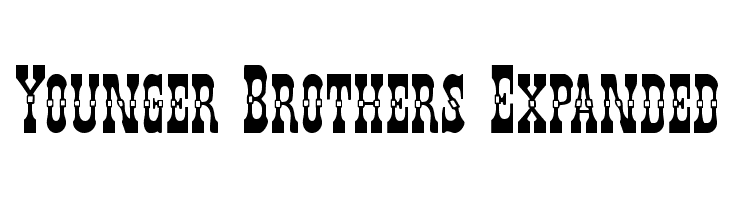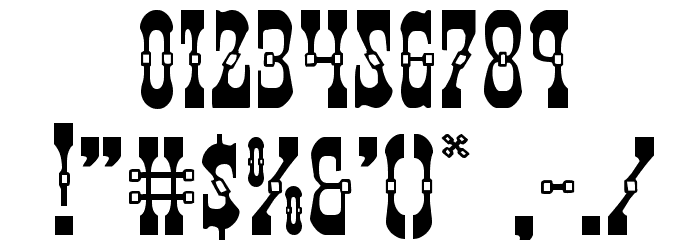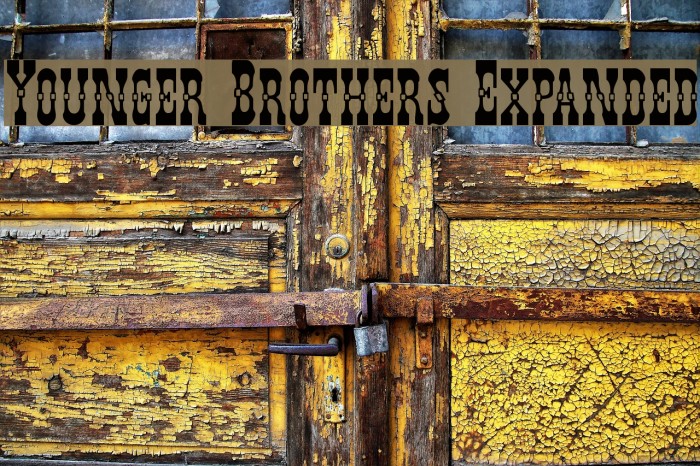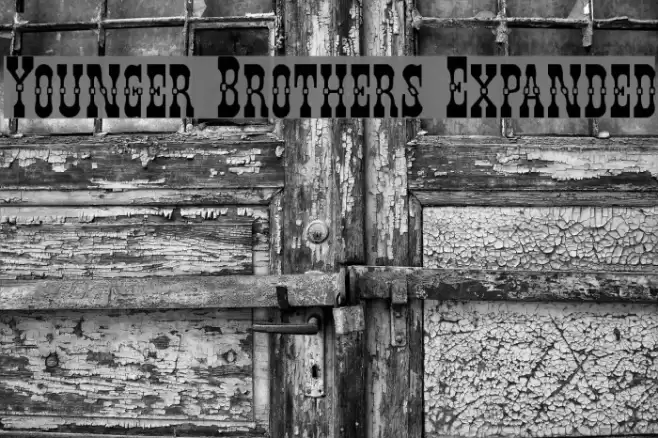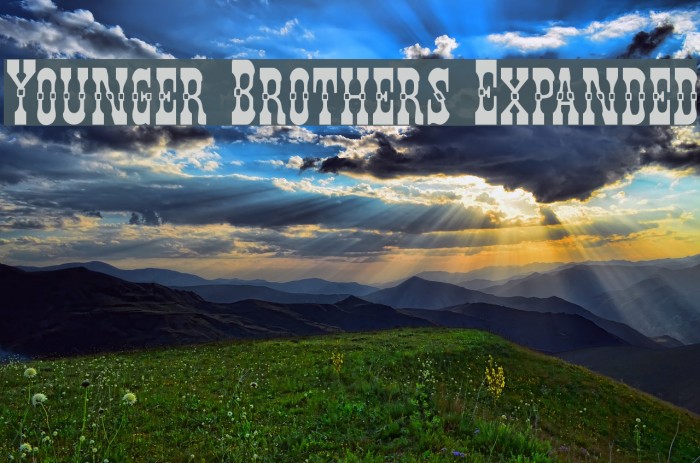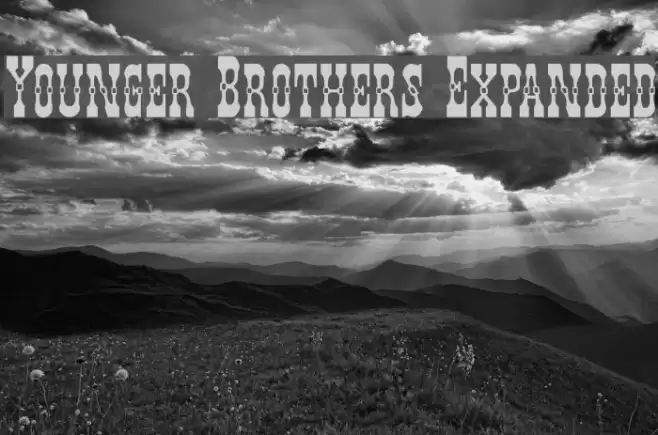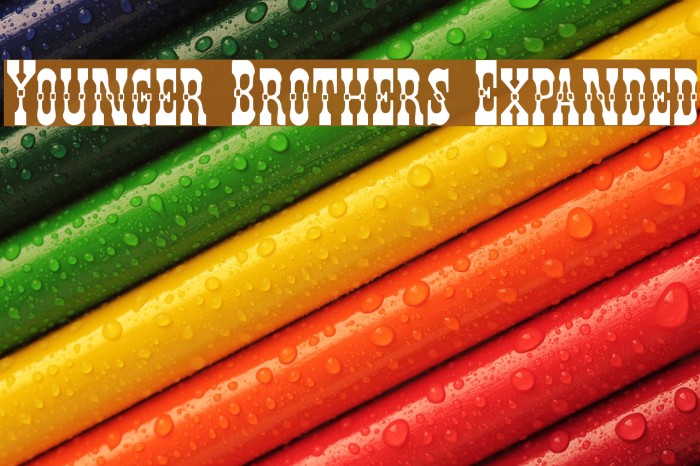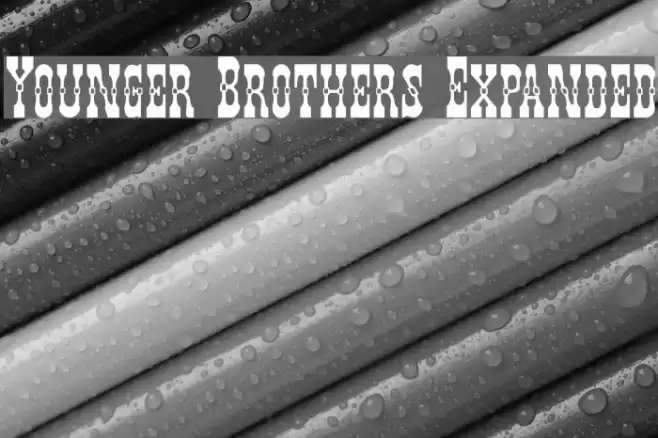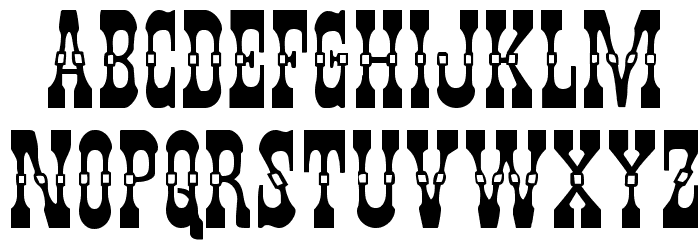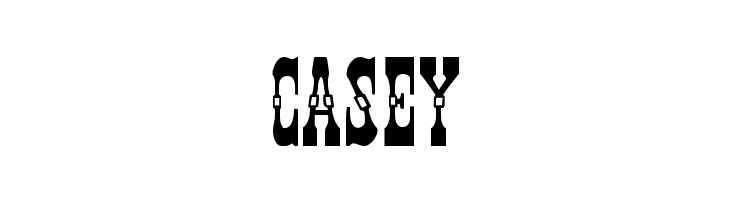
Younger Brothers Expanded Font
Younger Brothers Expanded Description
This font features a bold and decorative style with a unique design that incorporates intricate cut-out details within each character. The uppercase letters are particularly striking, with strong vertical lines and pronounced serifs that give them a robust appearance. The lowercase letters maintain the same decorative elements, ensuring consistency throughout the typeface. Numbers and special characters are equally stylized, making them suitable for attention-grabbing designs. The font's expanded width adds to its commanding presence, making it ideal for impactful headlines and display purposes.
A bold, decorative font with intricate cut-out details and an expanded width from Uncategorized fonts.
• Proposed Projects: Ideal for posters, branding, logos, and any design requiring a bold, eye-catching typeface.
• Overall Style: Decorative
• Use Case: Headlines, Logos, Posters